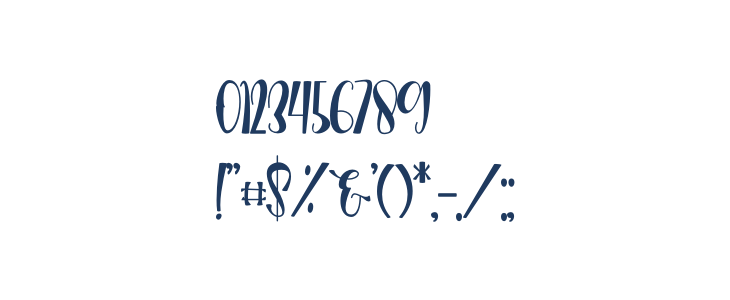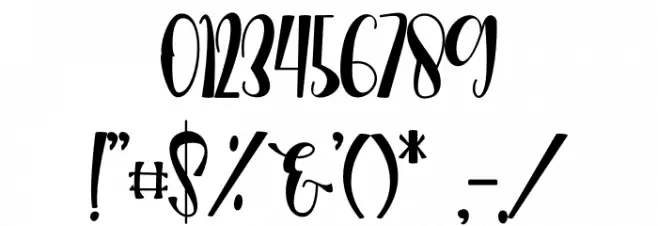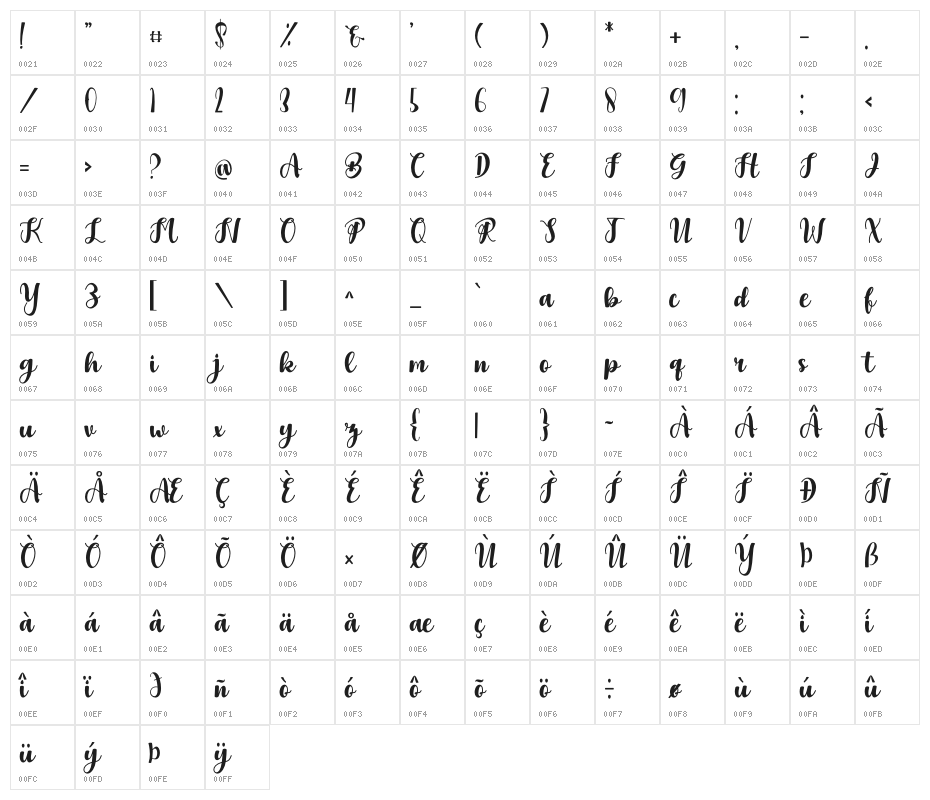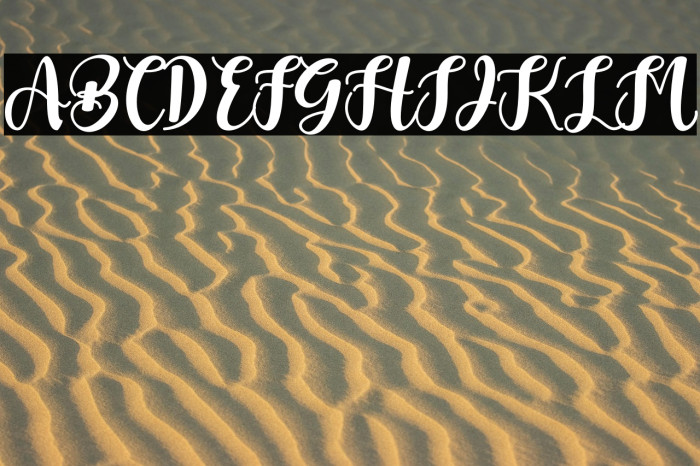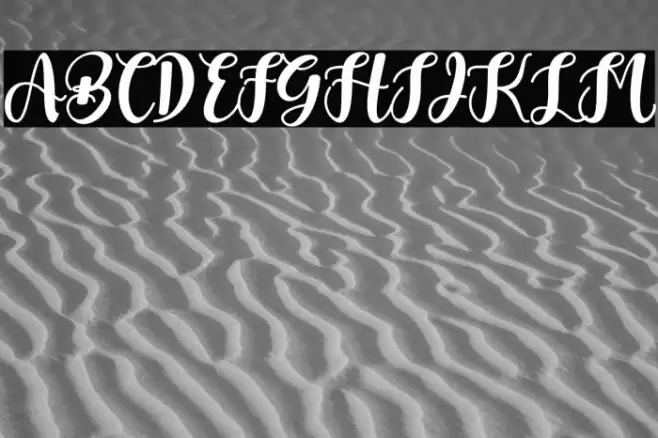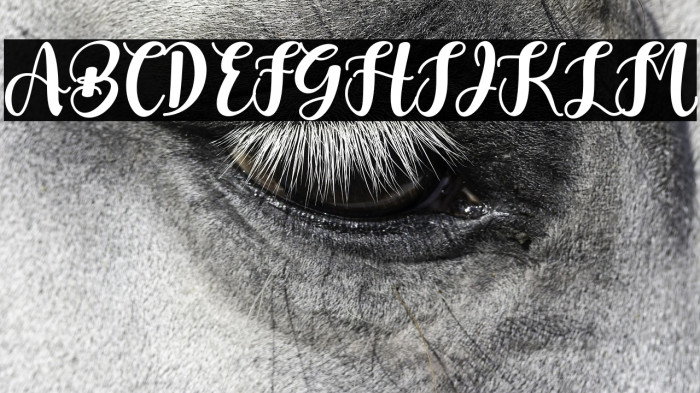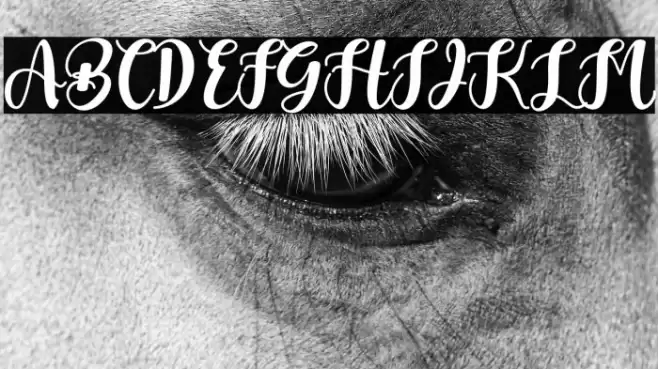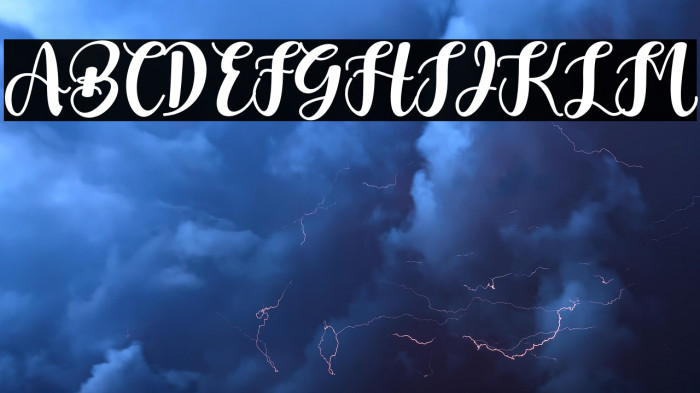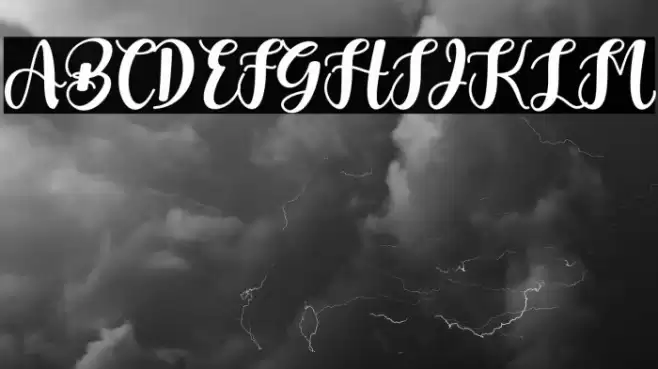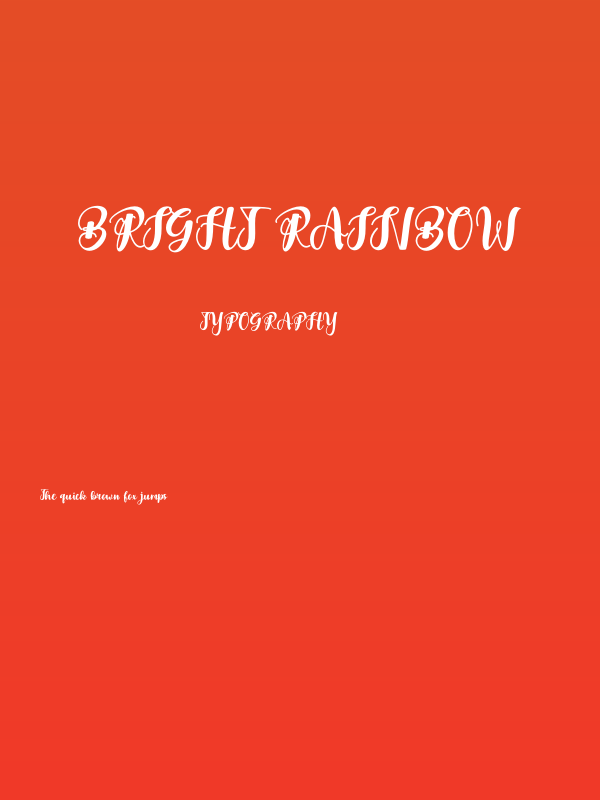
Bright Rainbow Font
Bright Rainbow Description
This font features a flowing, cursive style with elegant loops and flourishes, giving it a handwritten appearance. The letters are connected, creating a sense of continuity and fluidity. The uppercase letters are bold and prominent, while the lowercase letters maintain a consistent style with slightly smaller proportions. The numerals and special characters follow the same cursive theme, ensuring a cohesive look across all elements. The strokes are thick, providing a strong visual impact, and the overall design is both playful and sophisticated, making it suitable for a variety of creative applications.